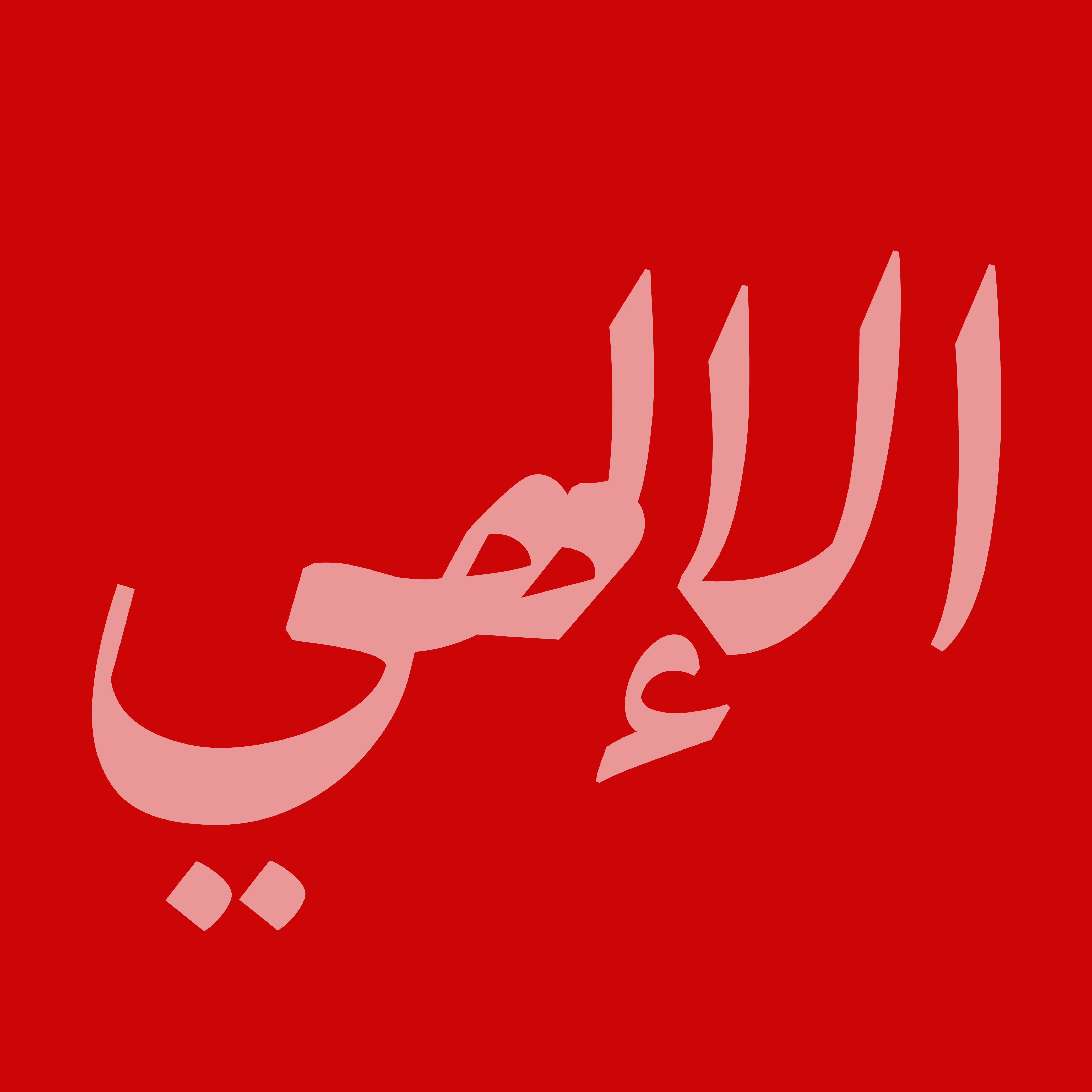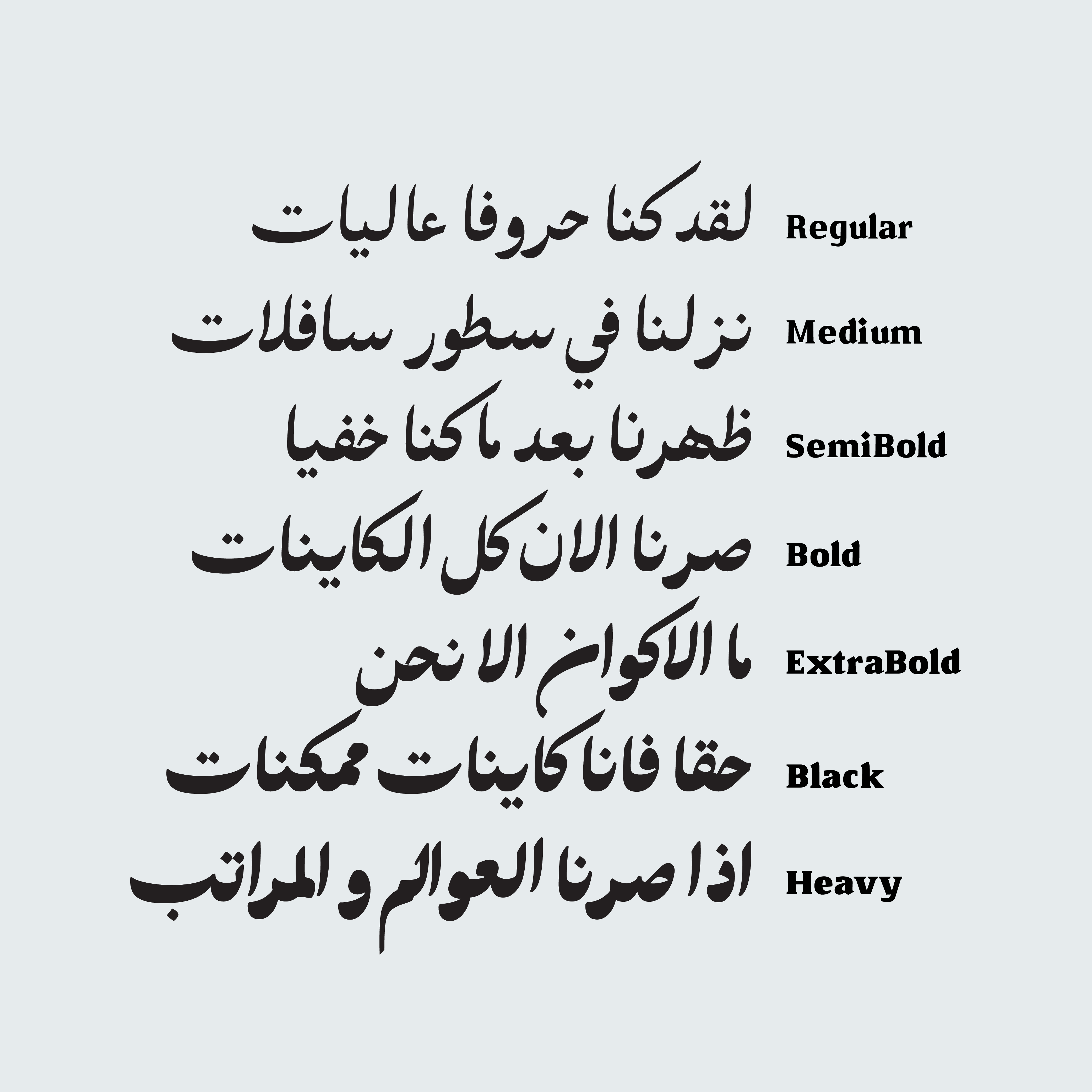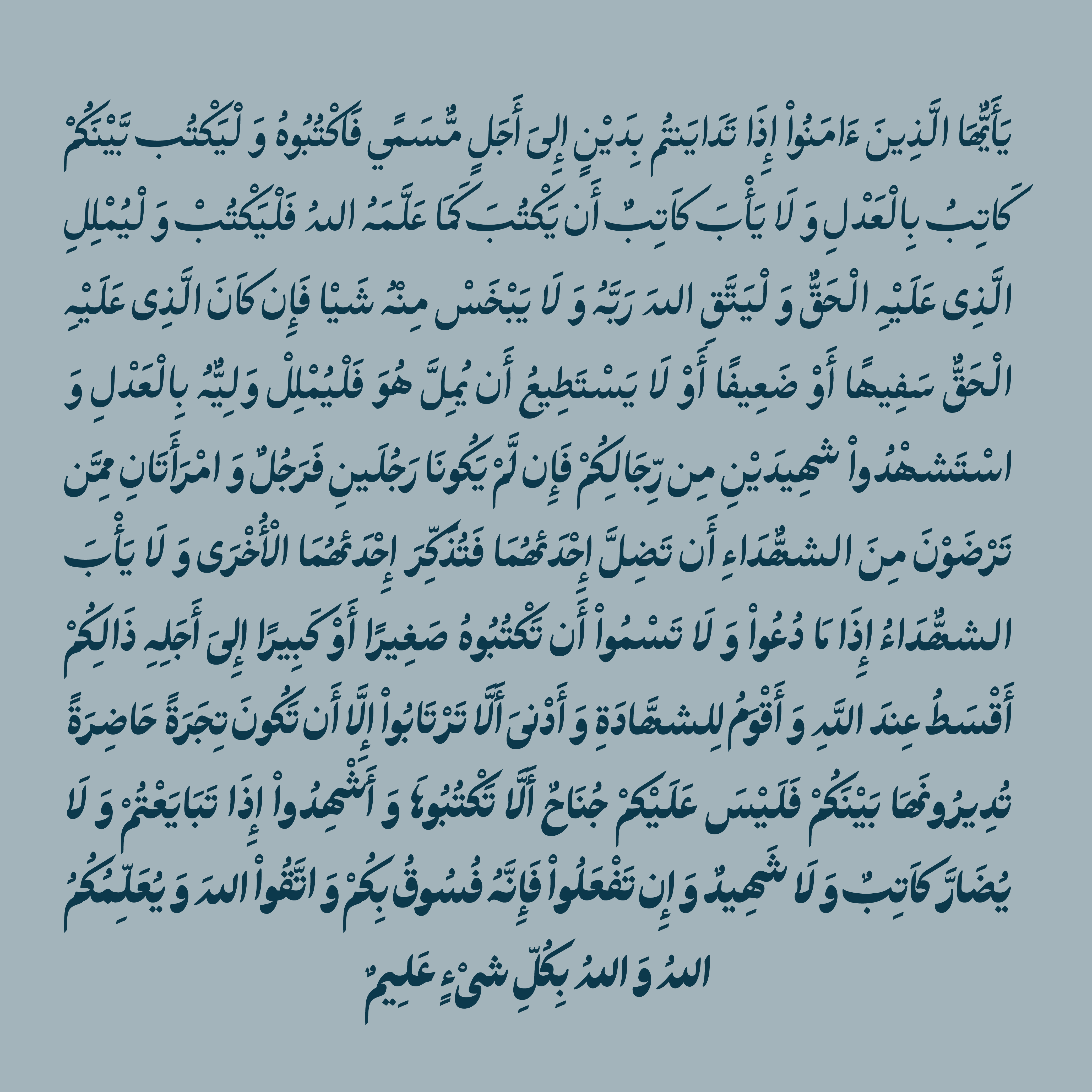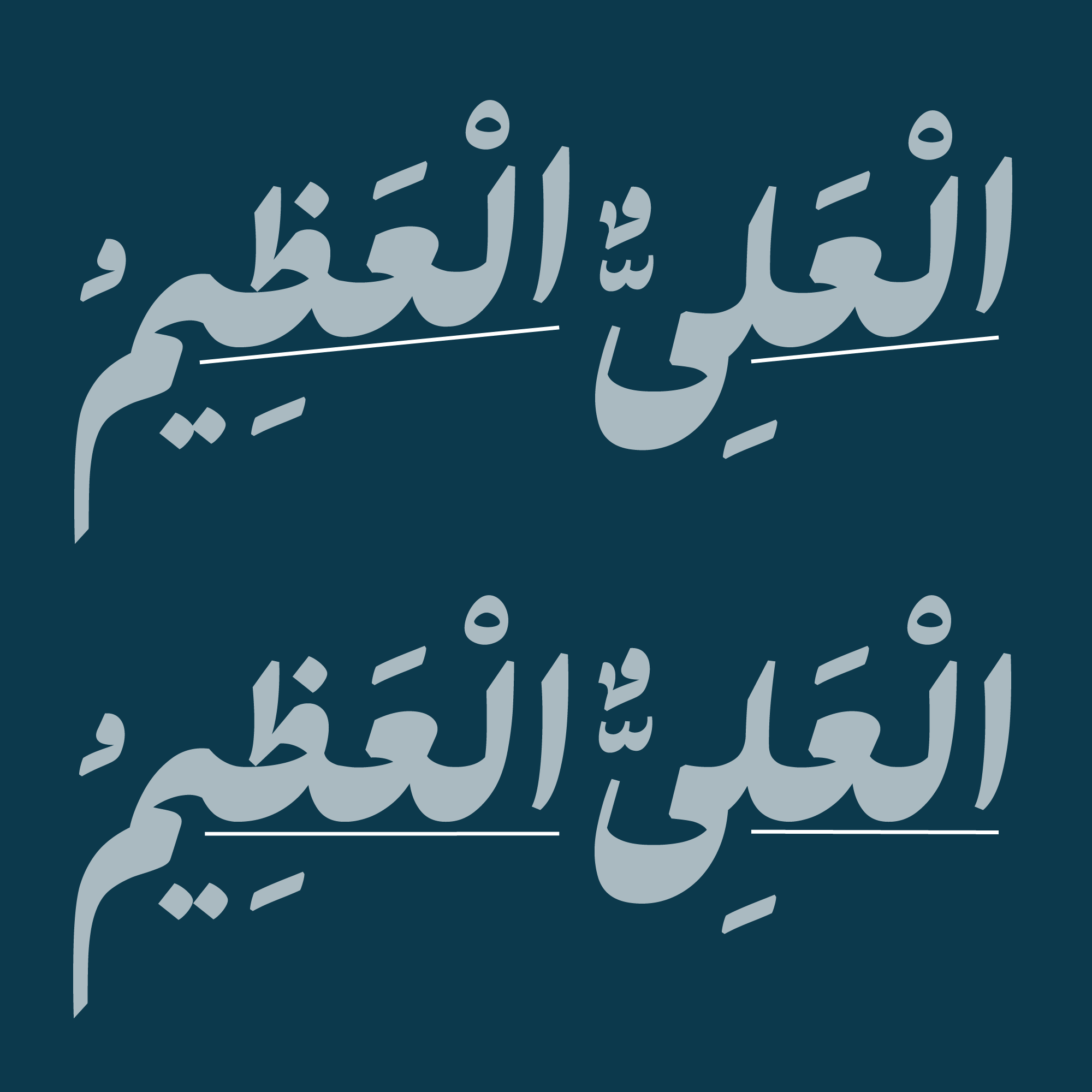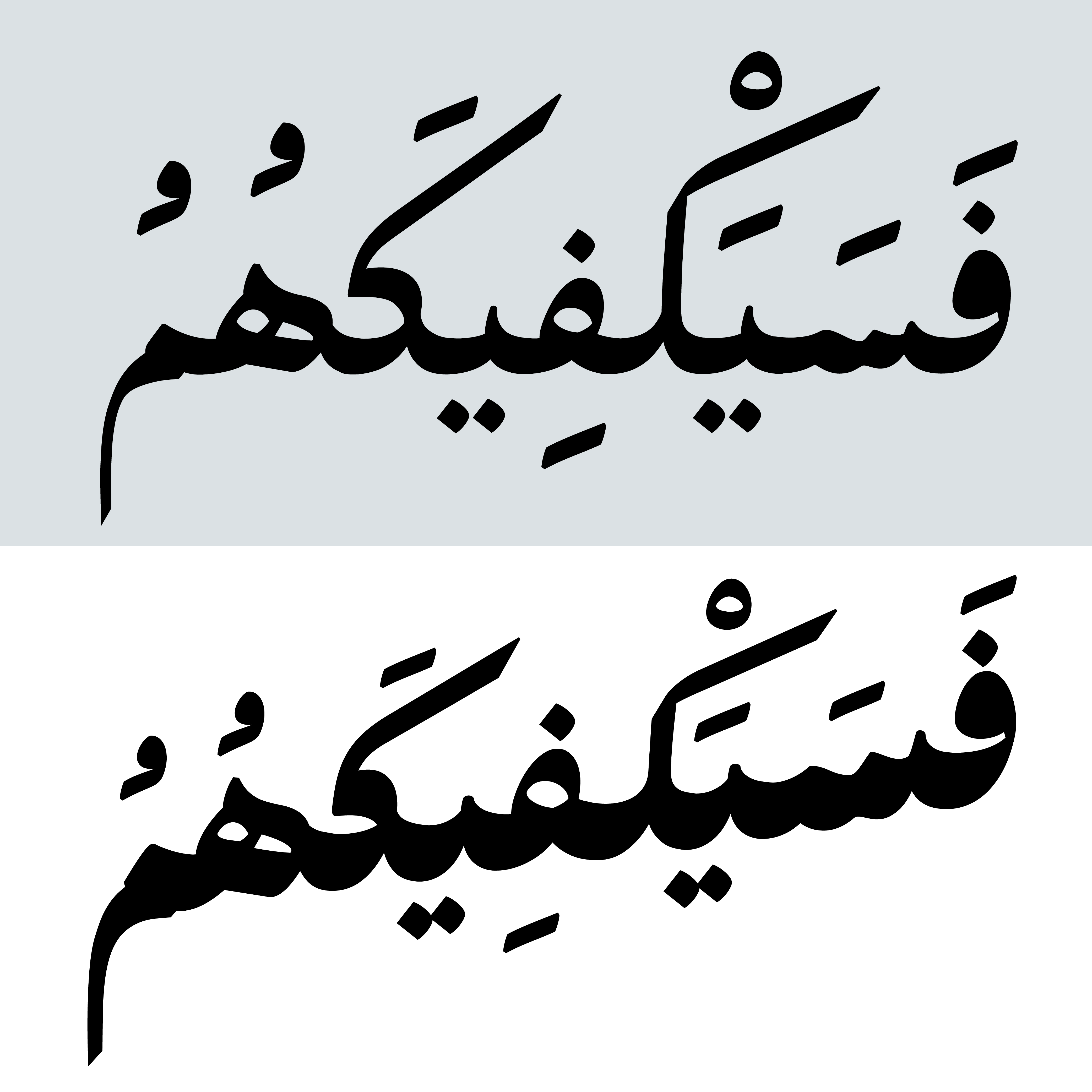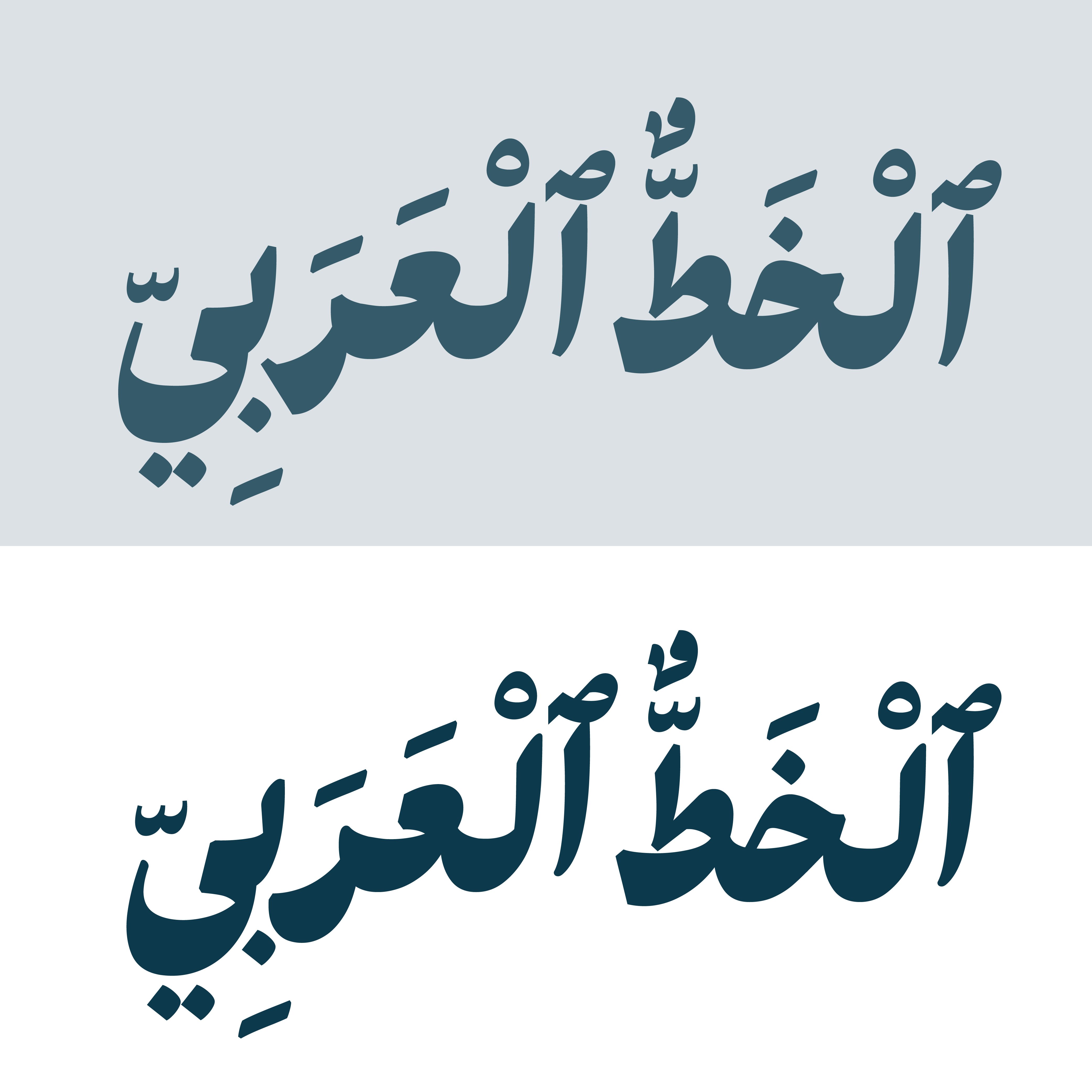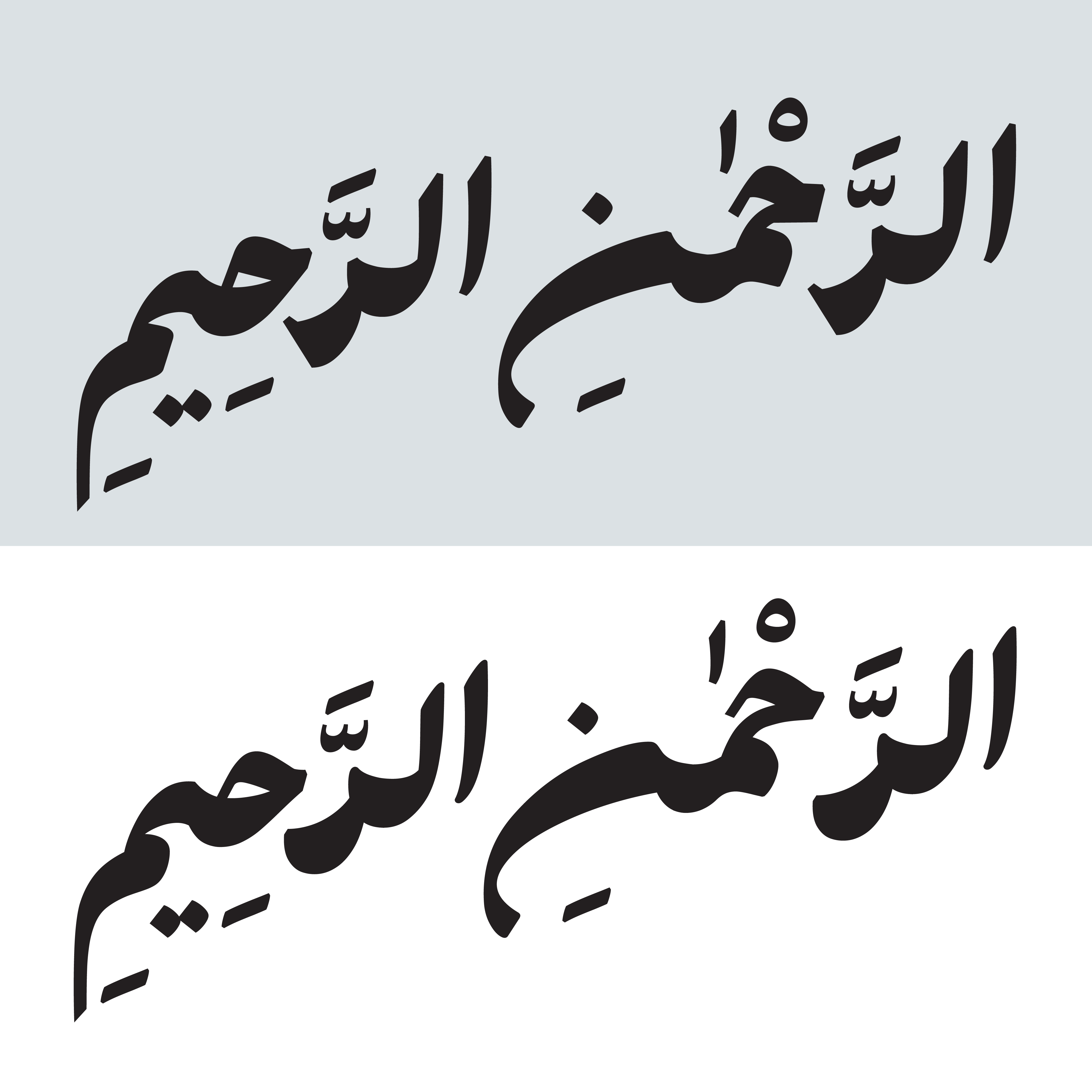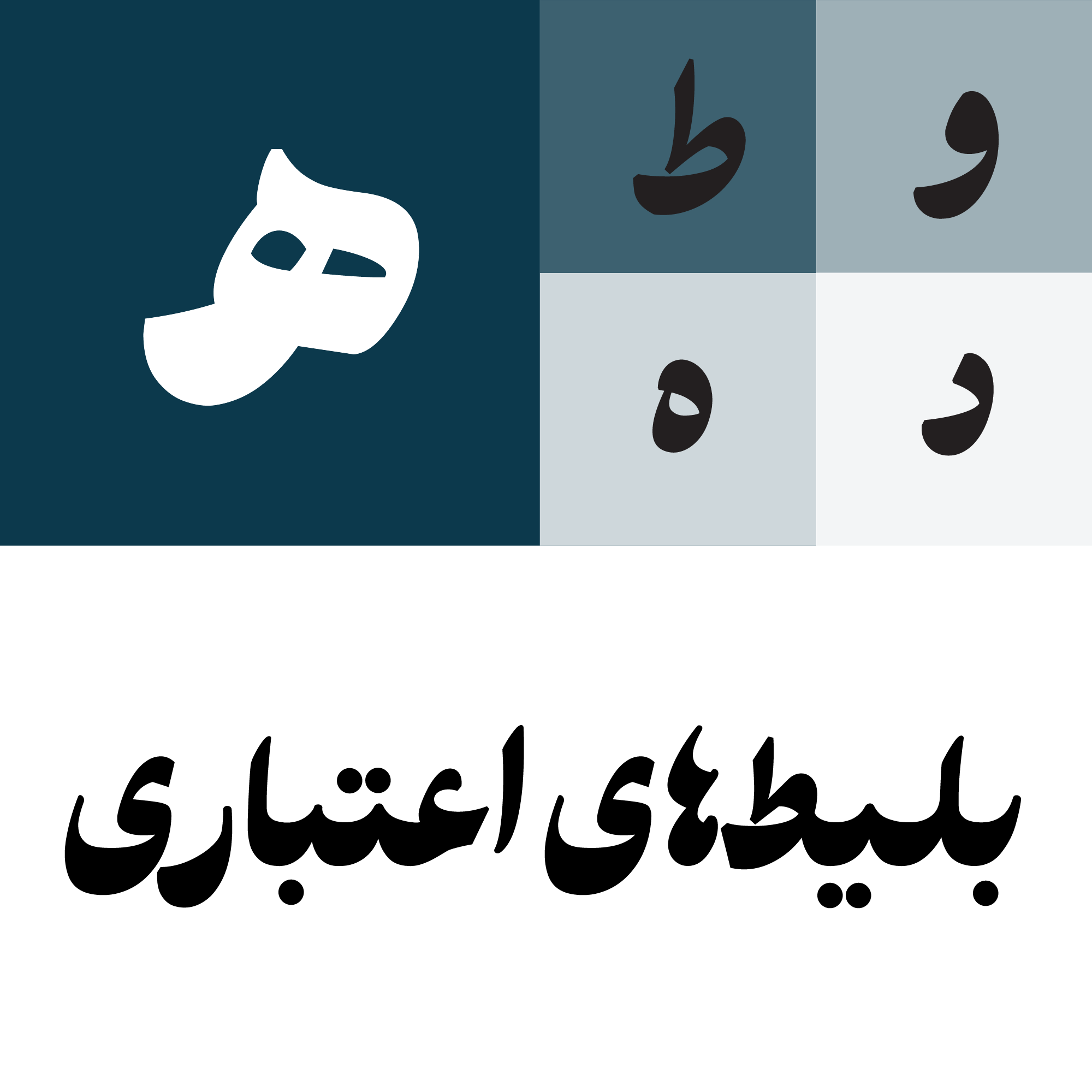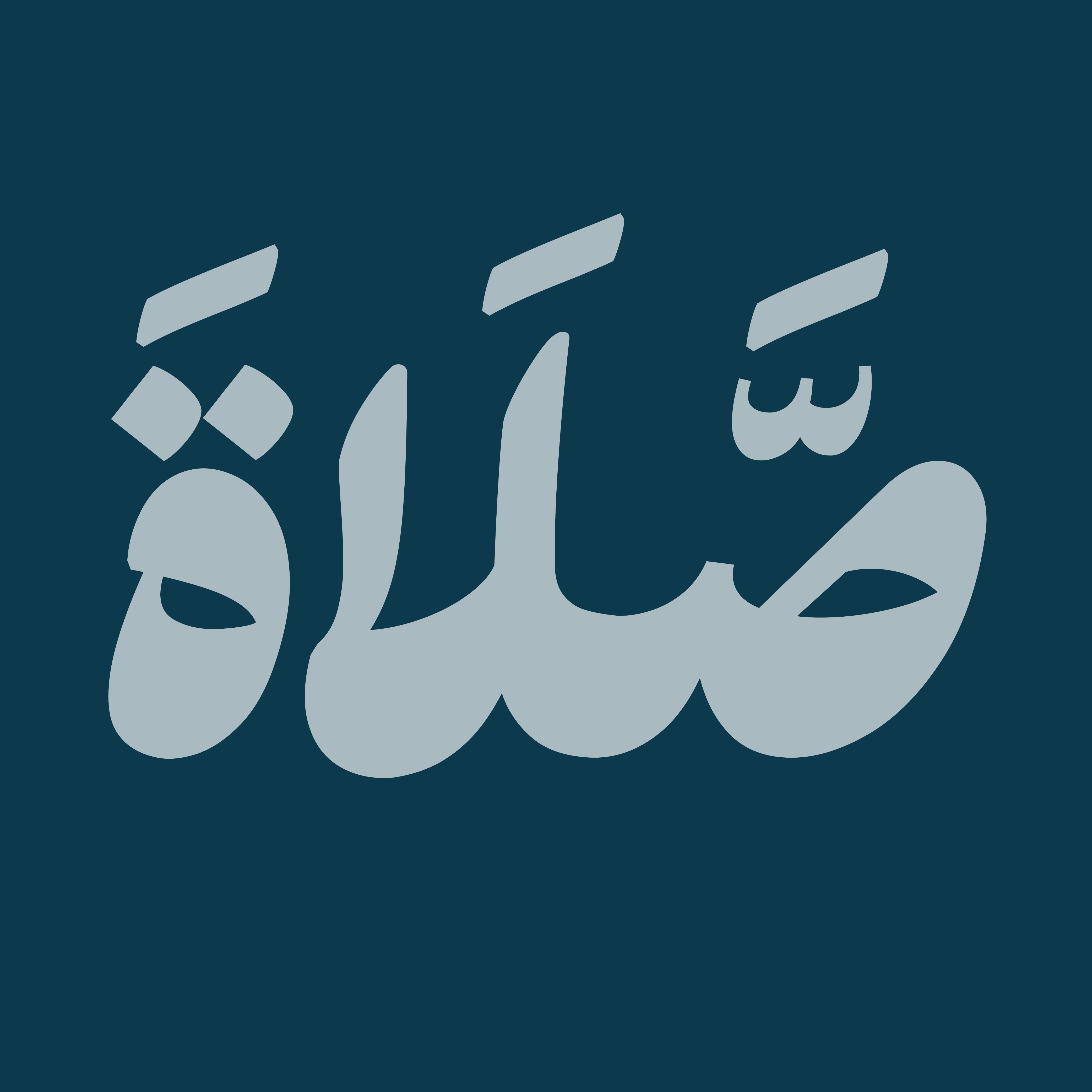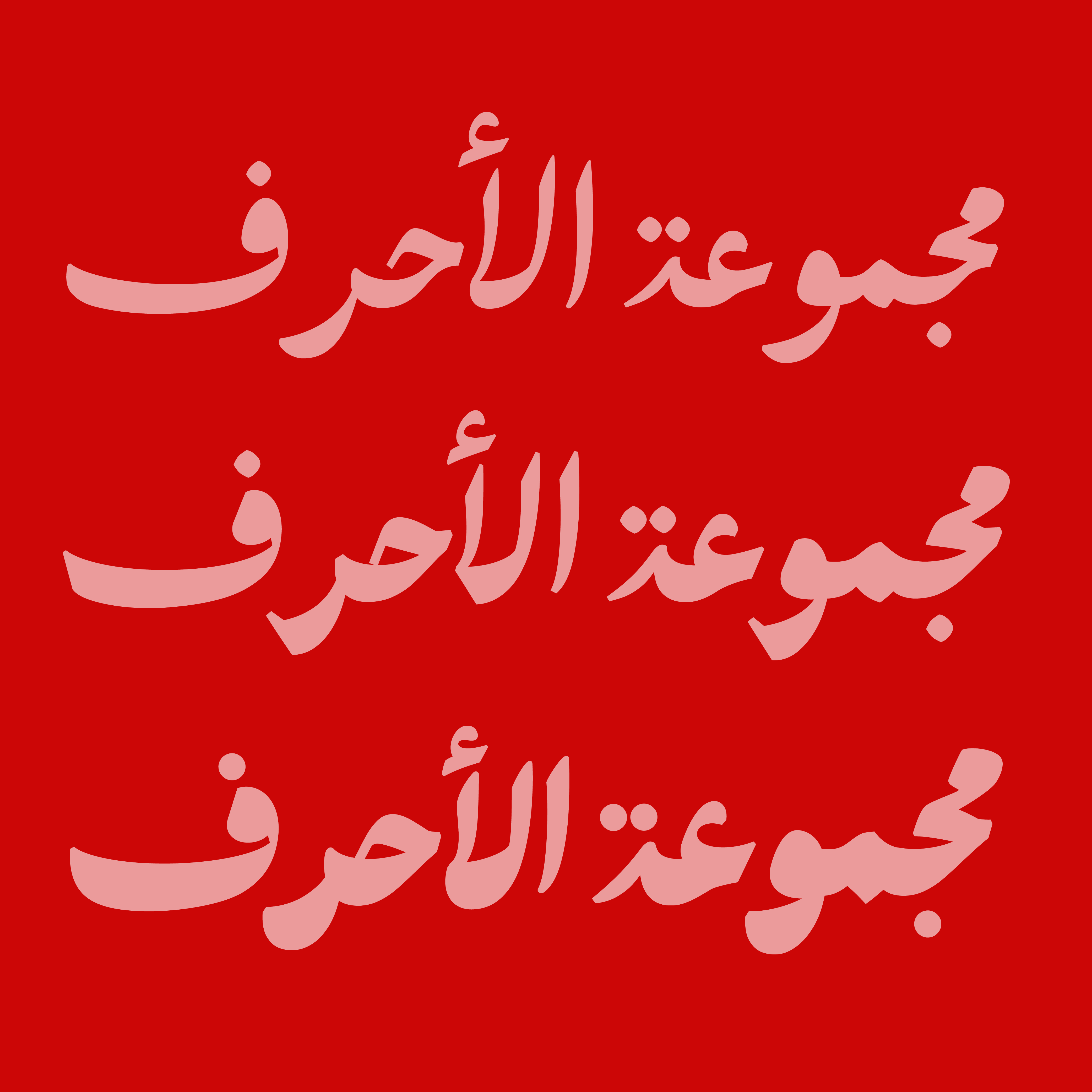
Pesteh
The design and development journey of Pesteh continues to evolve!
Variable Font Feature | Weight
Pesteh comes in 7 different weights, ranging from Thin to Heavy. This variety allows you to find the perfect choice for any context, from everyday body text to bold and striking headlines.
Light weights are ideal for smooth and highly readable text, while heavier weights add strength and character to your design. This flexibility lets designers achieve a wide range of results using only Pesteh, without the need for other fonts.
Variable Font Feature | Slant
The Slant axis is one of Pesteh’s most unique and innovative features, introduced for the first time in a Persian typeface. Inspired by the structure of traditional Iranian calligraphy, it gives the letters a dynamic, fluid, and energetic feel.
By adjusting the angle of the characters, you can create expressive and lively typography with a fresh rhythm. Slant adds a modern and vibrant look, especially in headlines and graphic compositions, unlike anything most Persian fonts can offer.
Variable Font Feature | Rounded
The Rounded axis brings a softer soul to Pesteh, transforming sharp and rigid forms into smooth and flowing ones. This feature helps you create more approachable, friendly, and human-centered typography.
In branding, advertising, or cultural design projects, Rounded can communicate warmth and fluidity. For large headlines or dynamic layouts, it gives the text a fresh and modern character.
Variable Font Feature | Noghteh (Dot)
Pesteh is flexible even in its details. The Noghteh axis allows you to switch between rounded or angular dots, giving your typography different personalities—from soft and friendly to serious and structured. Designers can adapt the dot style to better match the visual tone of their projects.
Ligatures & Alternates
Pesteh supports a rich set of alternates and multi-state ligatures. It includes numerous alternate characters and composite forms, giving you the freedom to display letters in different styles and choose among multiple variations.